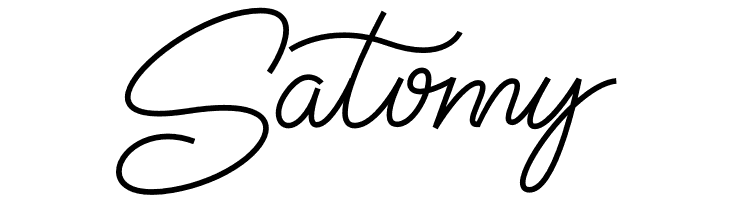
A decorative, gothic font with occult and demonic motifs.
A rugged, distressed font with sharp, jagged edges and a bold appearance.
A gothic, decorative font with sharp, thorn-like edges and a dramatic style.
A dynamic and expressive script font with fluid, cursive letterforms.
A decorative and artistic font with intricate, flowing letterforms.
A modern, elegant script font with flowing, interconnected letters.
A playful, flowing script font with elegant curves and a modern touch.
An elegant script font with flowing, cursive style and delicate loops.
A modern, elegant script font with flowing curves and sophisticated loops.
A graceful and elegant script font with flowing cursive strokes.
A playful, bold font with a hand-drawn, whimsical style.
A decorative font with floral patterns integrated into bold, uppercase letters.
A bold, angular font with sharp edges and a dynamic, stylized appearance.
A bold, playful font with a retro flair and decorative flourishes.
An elegant, flowing script font with a handwritten calligraphy style.
A fluid and elegant script font with a handwritten appearance and italic slant.
A lively and elegant script font with smooth, cursive letterforms.
A lively, expressive handwritten font with fluid strokes and a modern feel.
A futuristic, geometric font with sharp angles and clean lines.
A playful, handwritten font with smooth, rounded strokes and a casual style.
An elegant script font with intricate swashes and high contrast strokes.
An elegant script font with intricate swirls and high contrast, perfect for formal and decorative uses.
An elegant, flowing script font with a delicate, handwritten style.